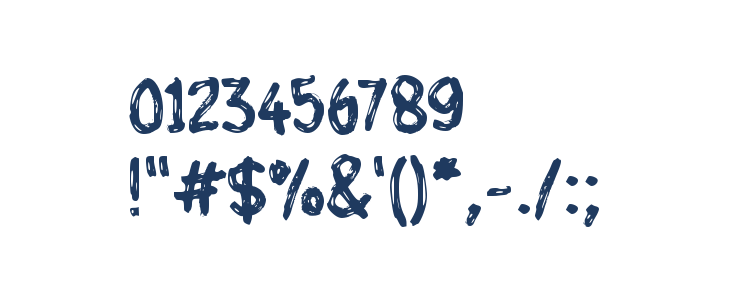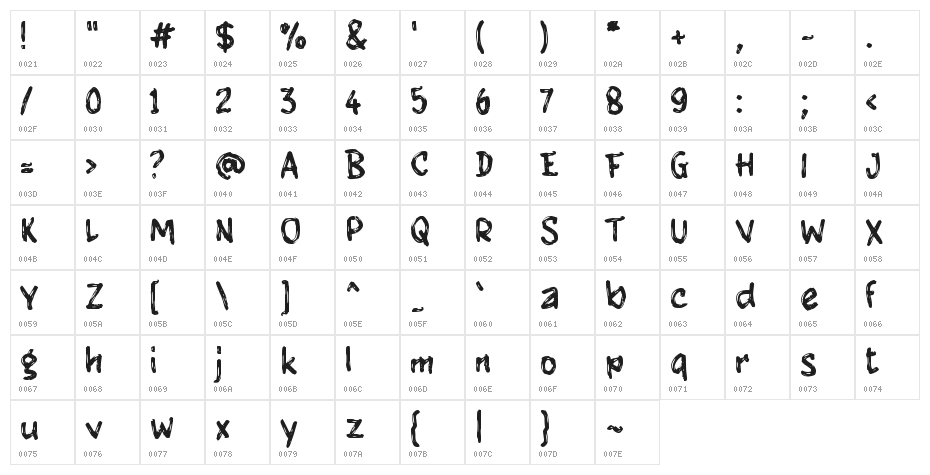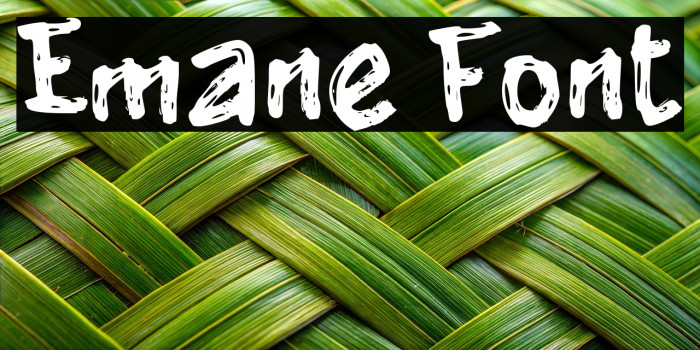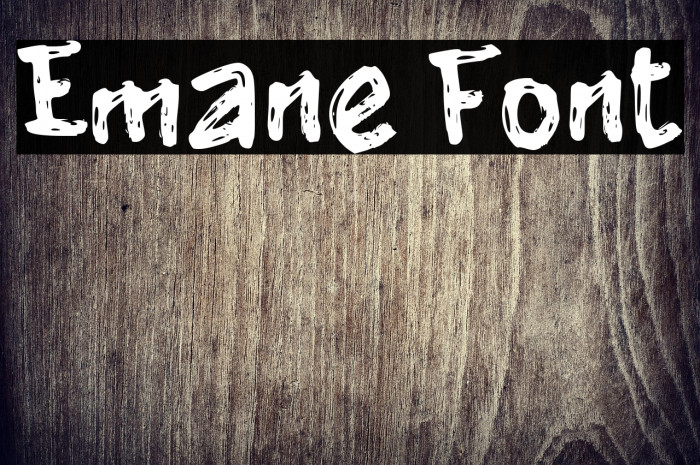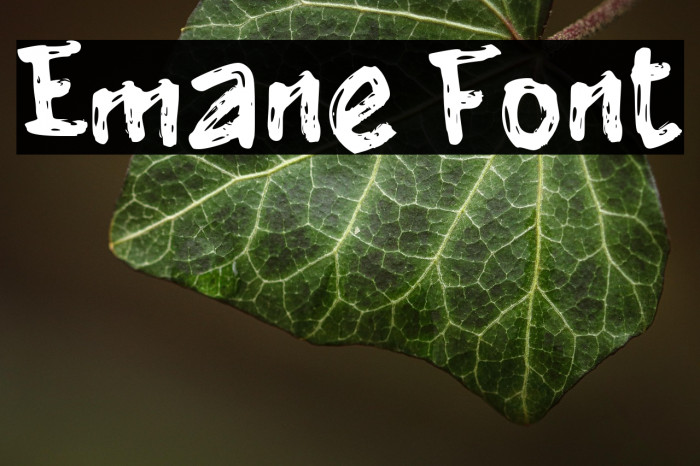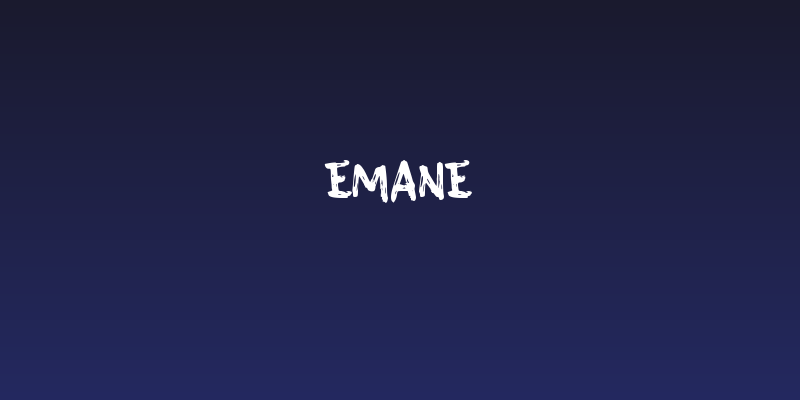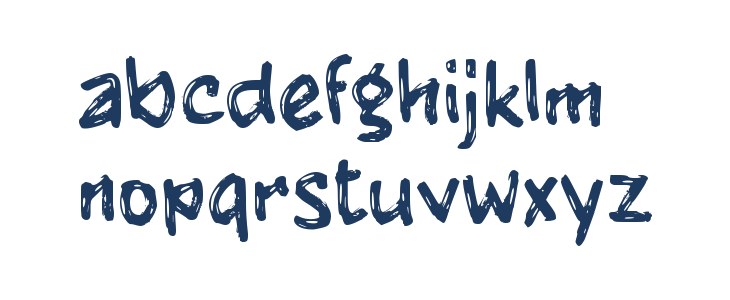
Emane Font
Emane Description
This font features a bold, expressive style with a hand-drawn appearance. The characters are irregular and dynamic, giving a sense of movement and energy. The strokes are thick and uneven, creating a textured look that adds depth and personality. The uppercase and lowercase letters maintain a consistent style, while the numbers and special characters complement the overall aesthetic. This font is perfect for projects that require a playful and artistic touch, making it ideal for creative designs that aim to stand out.
| Use Case | Logos, Headlines, Posters |
| Proposed Projects | Ideal for posters, album covers, artistic branding, and creative social media graphics. |